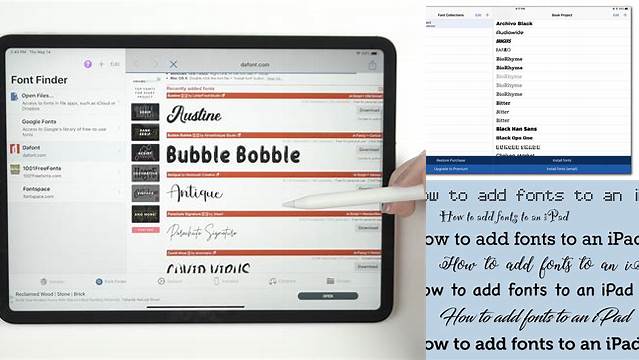
Download Fonts On IPad: A Simple Guide
Hey guys! Ever felt like your iPad's font selection is a bit... meh? Want to spice up your notes, presentations, or creative projects with some fresh, unique typefaces? Well, you're in luck! Downloading and installing fonts on your iPad is totally doable, and it's easier than you might think. This comprehensive guide will walk you through everything you need to know, from finding awesome fonts to installing them and using them in your favorite apps. Get ready to unleash your inner typographer and make your iPad creations truly stand out!
Why Customize Fonts on Your iPad?
Before we dive into the how-to, let's talk about why you might want to change the fonts on your iPad. Sure, the default options are fine, but custom fonts can add a whole new level of personality and professionalism to your work. Think about it: a handwritten-style font for a personal note, a sleek sans-serif for a business presentation, or a playful script for a social media graphic. The possibilities are endless! Custom fonts allow you to express your unique style, make your content more engaging, and even improve readability. For example, if you're working on a design project, the right font can be the difference between a masterpiece and a missed opportunity. And if you're a student, using different fonts for note-taking can help you organize information and remember key concepts. Plus, let's be honest, it's just plain fun to experiment with different fonts and see how they transform your text. Whether you're a creative professional, a student, or just someone who loves to personalize their devices, custom fonts are a fantastic way to make your iPad your own. We will delve into the world of iPad typography, exploring the various methods and tools available to elevate your digital creations.
Finding and Choosing Fonts
Okay, so you're convinced that custom fonts are the way to go. The next step is finding the perfect fonts for your needs. The good news is that there are tons of resources out there, both free and paid. But with so many options, it can be a bit overwhelming. Don't worry, I'm here to break it down for you. When embarking on the journey to discover and select the ideal fonts for your iPad, you'll encounter a vast landscape of options. This part of the guide will focus on navigating this expansive terrain, ensuring you can confidently choose fonts that not only meet your needs but also resonate with your personal style and the unique character of your projects. We'll explore diverse font repositories, highlight the importance of licensing, and provide essential tips for making informed decisions. Let's embark on this exciting exploration of typography, where each font tells a story and your choices can significantly enhance the visual impact of your work. Prepare to unlock a new level of creativity as we delve into the art of font selection, empowering you to make every word count.
Font Repositories: Where to Find Your Perfect Match
First up, let's talk about font repositories. These are websites that host a vast collection of fonts, often categorized by style, weight, and other characteristics. Some popular options include:
- Google Fonts: This is a fantastic resource for free, open-source fonts. They have a huge library with a wide variety of styles, and all the fonts are web-friendly, meaning they'll look great on screens.
- Adobe Fonts (formerly Typekit): If you have an Adobe Creative Cloud subscription, you get access to Adobe Fonts, which is another excellent library of high-quality fonts.
- DaFont: DaFont is a popular website with a massive collection of free fonts, but be sure to check the licensing before using them for commercial projects.
- Font Squirrel: Font Squirrel offers a curated selection of free fonts that are licensed for commercial use, making it a great option for designers and businesses.
- MyFonts: MyFonts is a premium font marketplace where you can purchase fonts from independent foundries and designers.
When browsing these repositories, pay attention to the font previews and descriptions. Look for fonts that match the style and tone of your projects. Consider factors like readability, legibility, and overall aesthetic appeal. Remember, the right font can make a big difference in how your message is received.
Choosing the right font can feel like a daunting task, but here are a few tips to help you narrow down your options:
- Consider your project: What kind of project are you working on? A formal presentation will require a different font than a casual invitation.
- Think about your audience: Who are you trying to reach? Choose fonts that will resonate with your target audience.
- Pay attention to readability: Can people easily read the font, both on screen and in print?
- Don't use too many fonts: Sticking to one or two fonts per project will create a more cohesive and professional look.
- Experiment and have fun: Don't be afraid to try out different fonts and see what works best for you!
Installing Fonts on Your iPad
Alright, you've found some amazing fonts, and you're itching to use them. Now comes the fun part: installing them on your iPad! Thankfully, Apple has made this process relatively straightforward. Before iOS 13, installing custom fonts on iPads was a bit of a hassle, often requiring third-party apps and workarounds. But with the introduction of iOS 13 and later, Apple has streamlined the process, making it much easier to add new fonts to your device. Now, installing fonts on your iPad is a breeze, and you can do it directly through the Settings app. This section will guide you through the step-by-step process of installing fonts on your iPad, ensuring that you can start using your favorite typefaces in no time. Get ready to personalize your iPad like never before!
Using Font Installation Apps
The easiest way to install fonts on your iPad is by using a font installation app. These apps act as intermediaries, allowing you to download and install fonts directly onto your device. Some popular font installation apps include:
- iFont: iFont is a free app that allows you to install fonts from various sources, including Google Fonts, DaFont, and your own custom fonts.
- AnyFont: AnyFont is a paid app that offers a more comprehensive font management solution, with support for a wide range of font formats and installation options.
- Font Diner: Font Diner is another paid app with a user-friendly interface and a large selection of fonts to choose from.